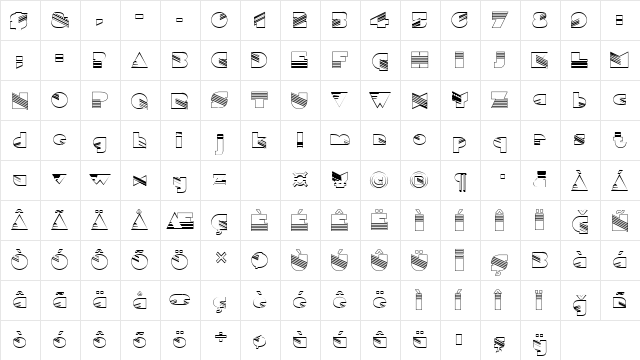
Sinalco Outline Normal
Design Context for Sinalco Outline Typeface
Sinalco Outline brings ornamental detail and strong personality to headlines and identities, where visual impact matters more than quiet functionality.
Font Pairing: Pair with a clean neutral sans-serif for body copy to let Sinalco Outline's character lead without overwhelming the composition.
Pro Tip: Treat Sinalco Outline as the centrepiece of your typographic hierarchy. One strong heading set in a decorative face can carry an entire layout.